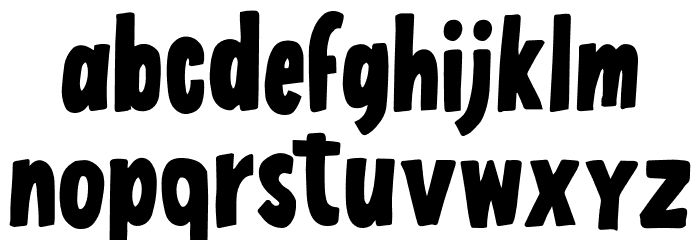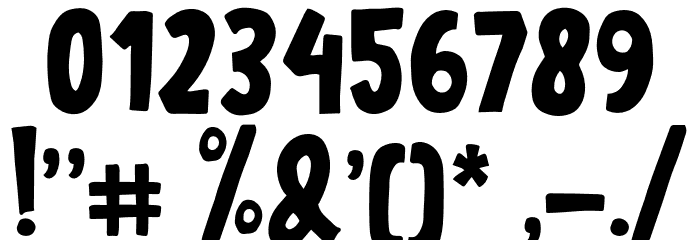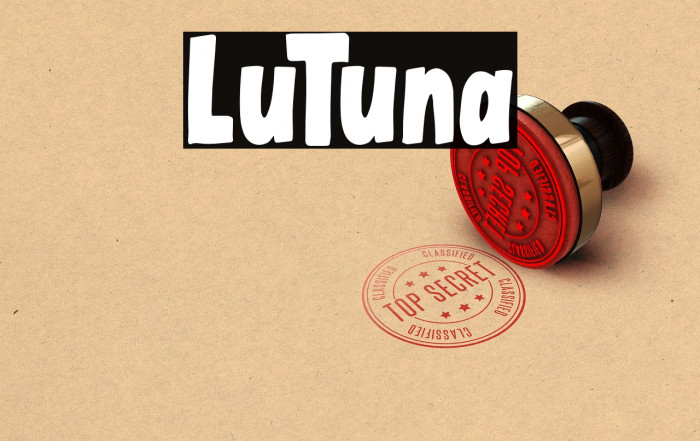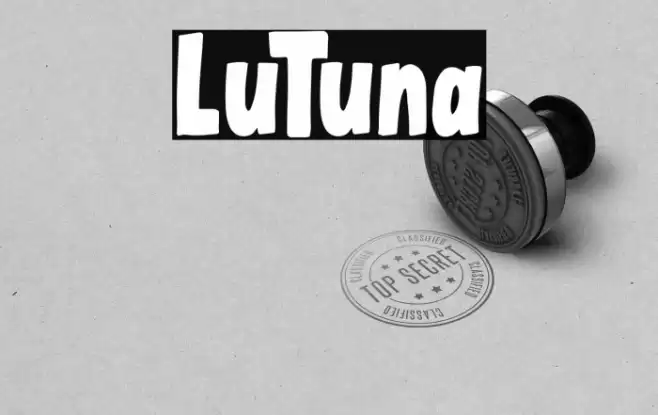
LuTuna Font
This font features a bold and playful style with thick, rounded strokes that give it a friendly and approachable appearance. The characters are slightly irregular, adding a hand-drawn feel that enhances its whimsical nature. The uppercase and lowercase letters maintain a consistent weight, while the numbers and special characters follow the same design principles, ensuring uniformity across all glyphs. Its boldness makes it stand out, making it ideal for eye-catching designs.
- Proposed Projects: Ideal for children's books, playful branding, posters, and greeting cards.
- Overall Style: Playful, Whimsical